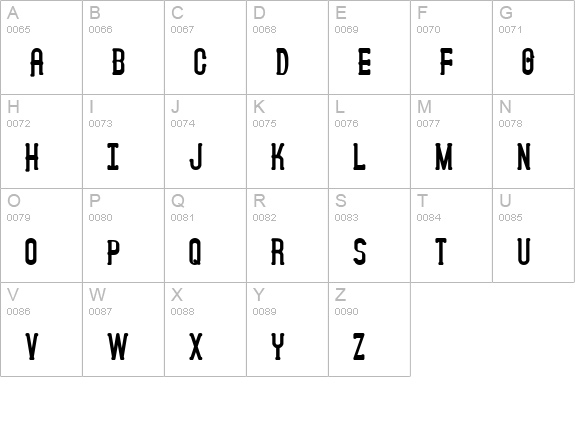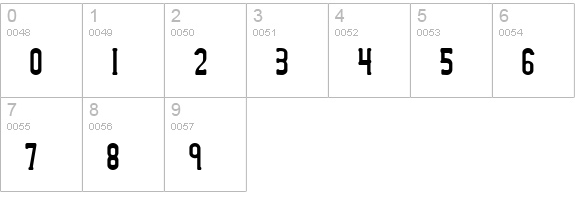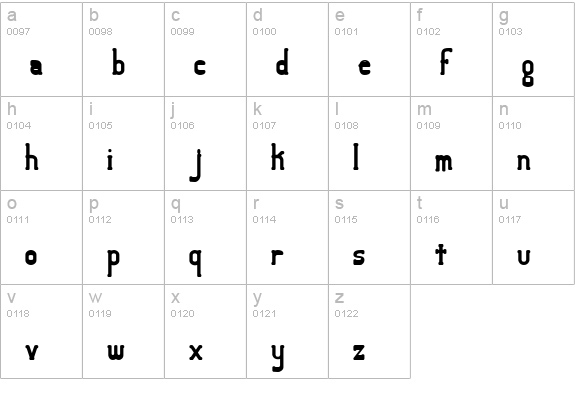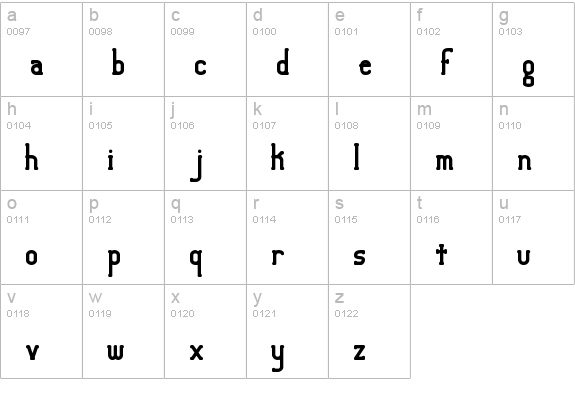
Lucid Type B BRK font is a modern and sophisticated typeface that combines sleek lines with a touch of elegance. Its bold and stylish design makes it perfect for creating eye-catching headlines, logos, and branding materials. The clean and crisp letterforms of Lucid Type B BRK font exude professionalism and class, making it a versatile choice for a wide range of design projects. Best of all, Lucid Type B BRK font is available for free download at FontsMarket.com. This means that you can easily access this high-quality font without any cost, allowing you to elevate your design work without breaking the bank. Whether you're a professional designer or a hobbyist looking to enhance your projects, Lucid Type B BRK font is a fantastic choice that won't disappoint. Download it today and add a touch of sophistication to your creations!